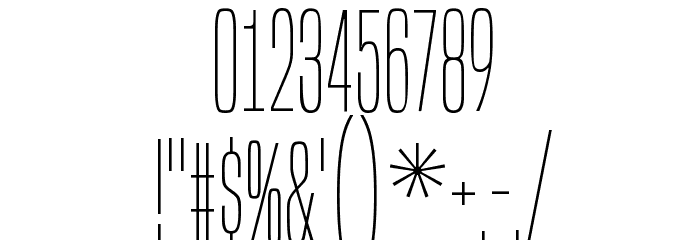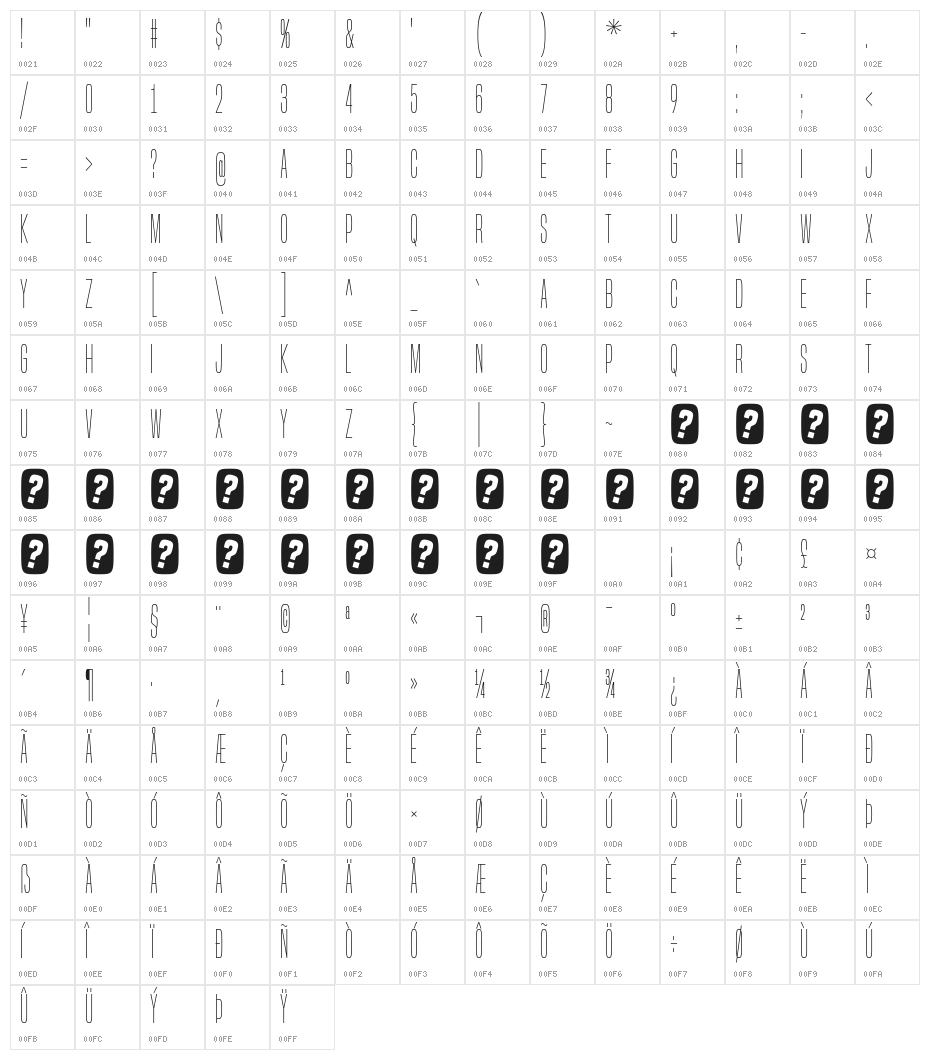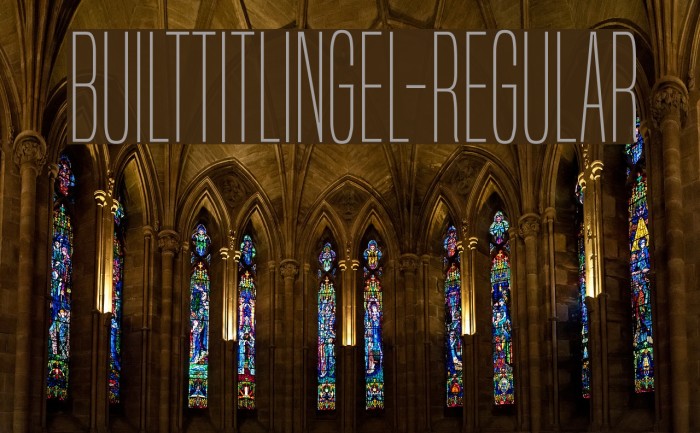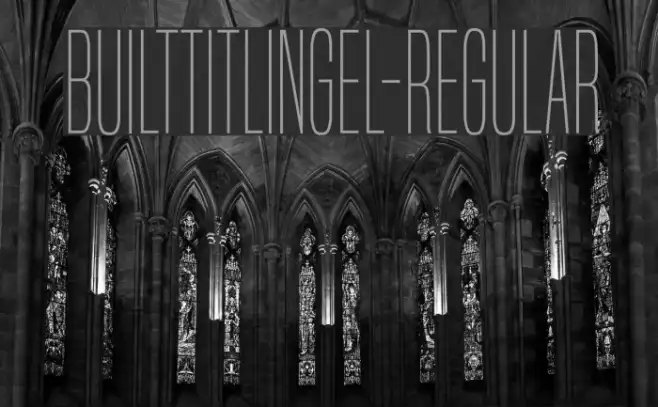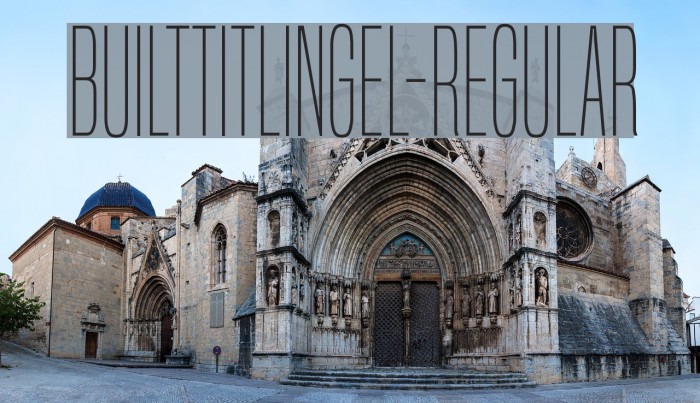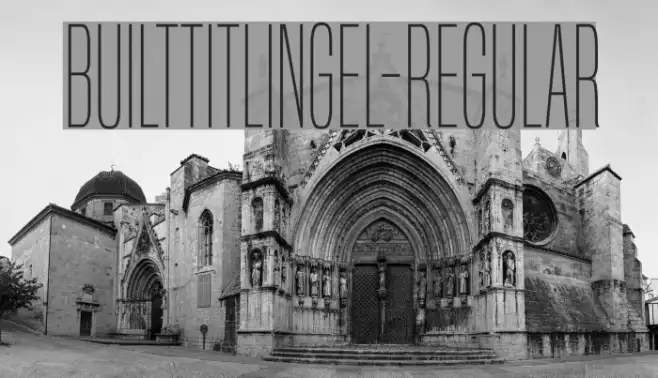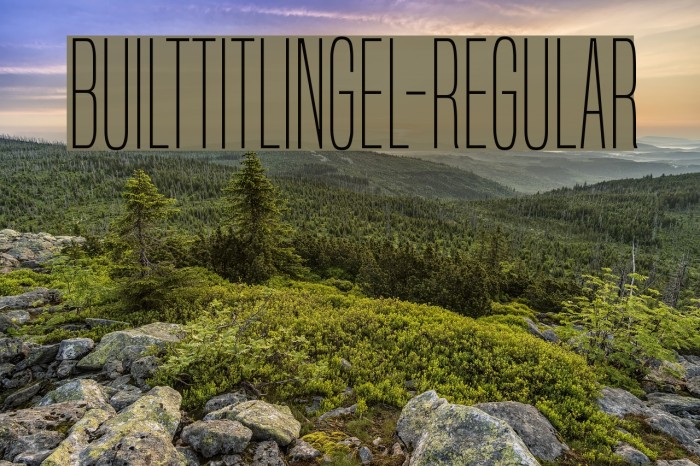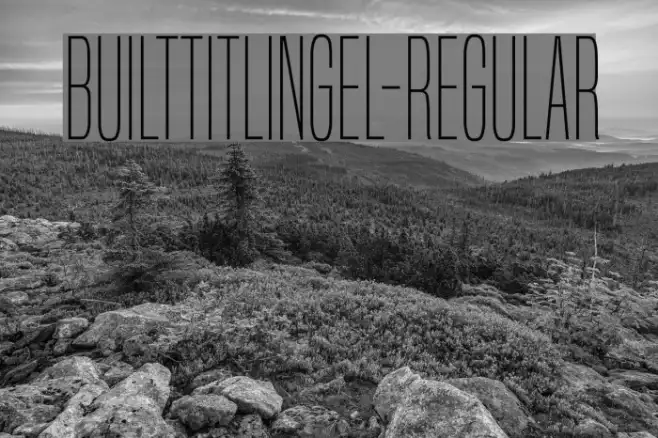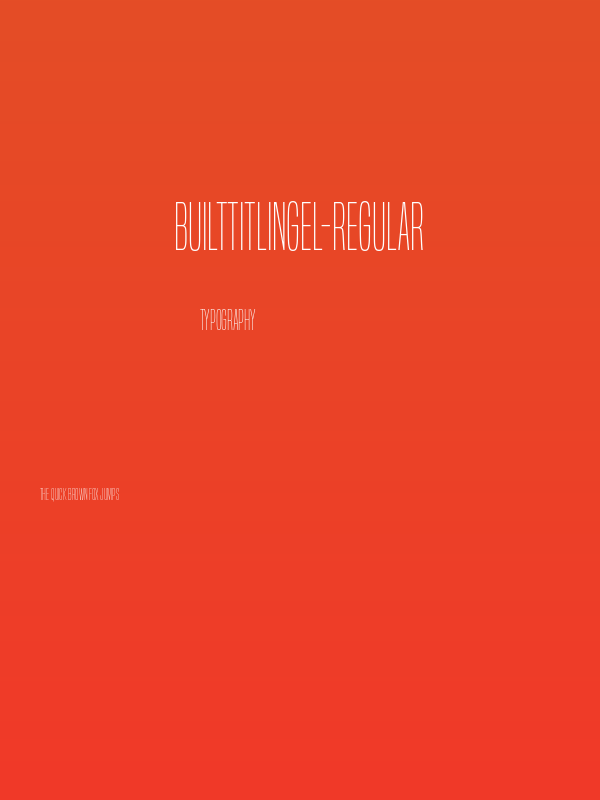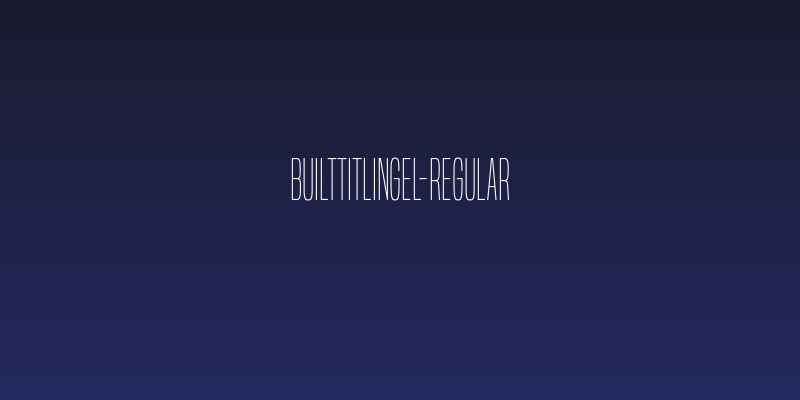
BuiltTitlingEl-Regular Font
BuiltTitlingEl-Regular Description
This font features an ultra-condensed and elongated style, characterized by its tall and narrow letterforms. The strokes are consistently thin, providing a sleek and modern appearance. The uppercase and lowercase letters maintain a uniform height, contributing to a clean and minimalist aesthetic. The numerals and special characters are designed to match the overall slim and elegant look, making it suitable for projects that require a sophisticated and contemporary touch.
Proposed ProjectsIdeal for fashion magazines, luxury branding, modern posters, and minimalist web design.